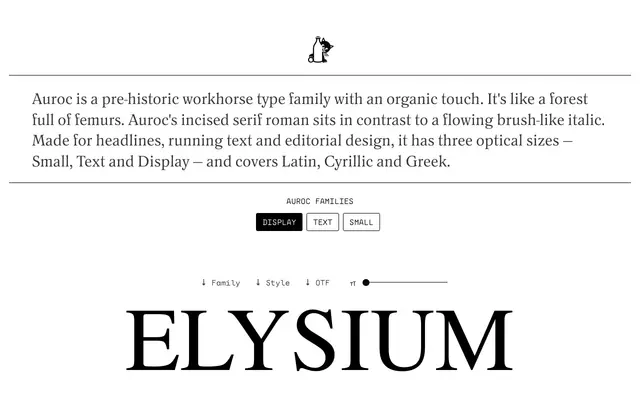
Auroc
East of Rome · Lewis McGuffie
A five-weight editorial serif by Lewis McGuffie with sharp incised romans and flowing brush-like italics, offered across three optical sizes covering Latin, Cyrillic and Greek.
The upright cuts draw on lapidary letterforms: serifs arrive as knife cuts and the junctions between curves and stems are etched with sharp notches, giving the roman a prehistoric, almost carved quality. The italic breaks from this austerity with softer curves and a pointed-brush rhythm, creating deliberate contrast within a single family. Thirty styles across Display, Text and Small optical sizes make it equally at home in large headlines, body paragraphs and footnotes.
Auroc's roman features sharp incised serifs with knife-cut stroke terminals and notched joints, placing it firmly in the incised or lapidary serif tradition. The contrasting brush-like italic adds a calligraphic dimension uncommon in purely incised designs.